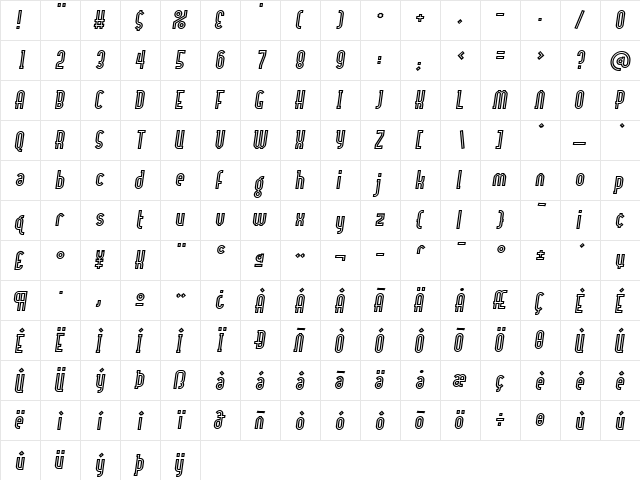
CentrifugeInline Bold
Design Context for CentrifugeInline Typeface
CentrifugeInline brings ornamental detail and strong personality to headlines and identities, where visual impact matters more than quiet functionality. The heavy weight commands attention and anchors typographic hierarchies.
Font Pairing: Pair with a clean neutral sans-serif for body copy to let CentrifugeInline's character lead without overwhelming the composition.
Pro Tip: Treat CentrifugeInline as the centrepiece of your typographic hierarchy. One strong heading set in a decorative face can carry an entire layout.